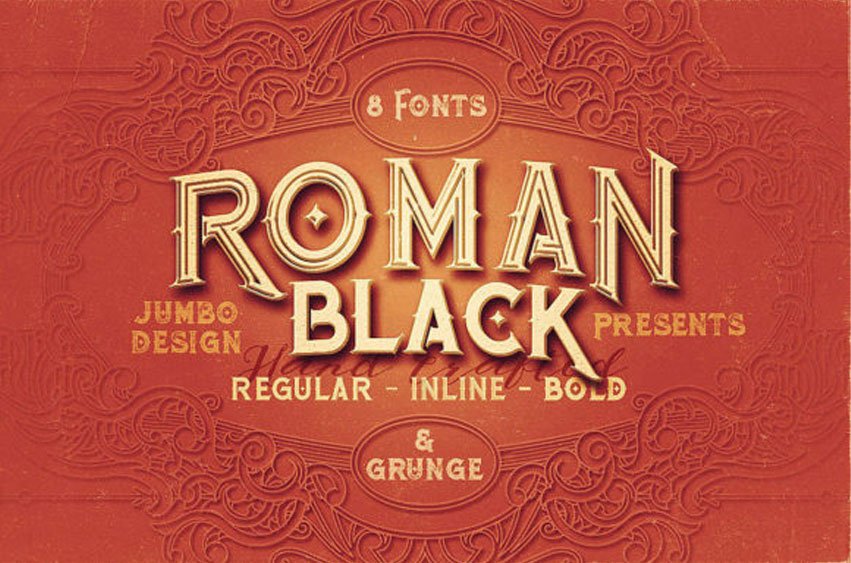
Roman Black Font is an unique, vintage & ornamental custom serif font. It comes in 8 styles: regular, inline, bold, bold inline and their grunge versions.
All styles can be combined perfectly which gives you the opportunity to create multiple unique designs in an instant.